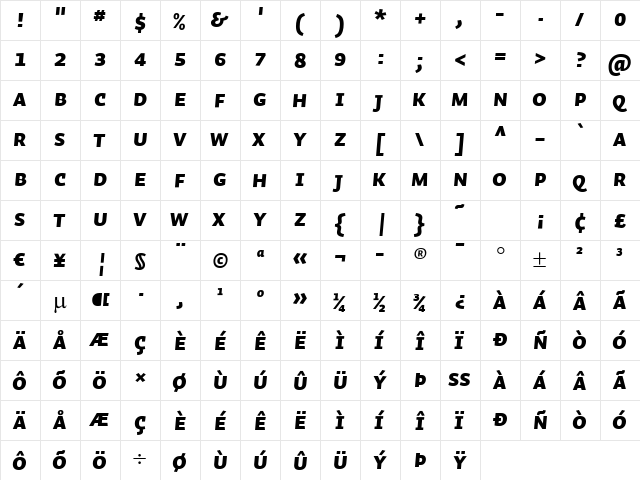
Auto 2 Black Italic SmCp
Design Context for Auto 2 Typeface
Auto 2 takes a measured approach to typography — its balanced proportions and neutral character make it a reliable workhorse for both digital and print work. The dynamic lean of this cut emphasises speed and emphasis in any layout.
Pro Tip: Use Auto 2 for emphasis, pull quotes, and subheadings where its slanted energy can add rhythm to the layout.